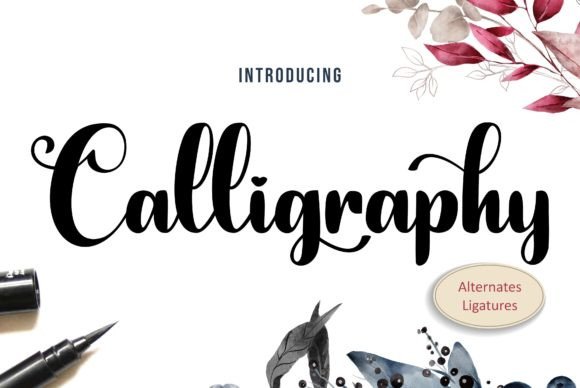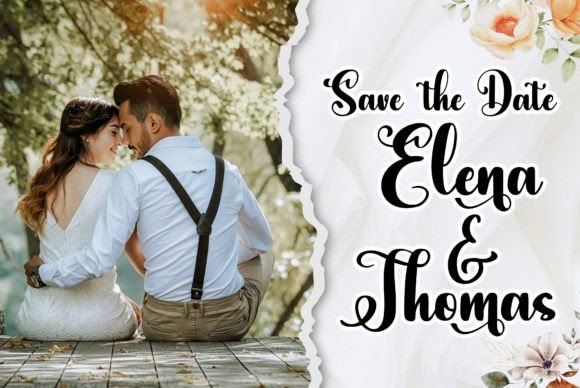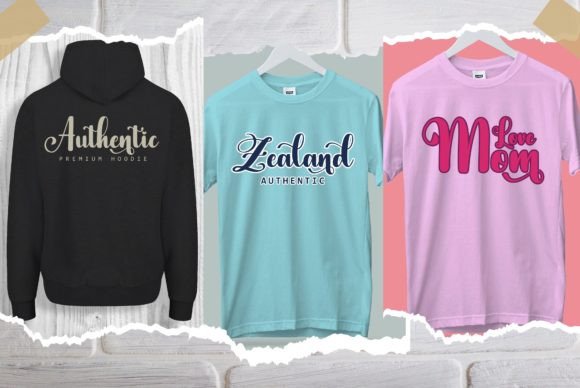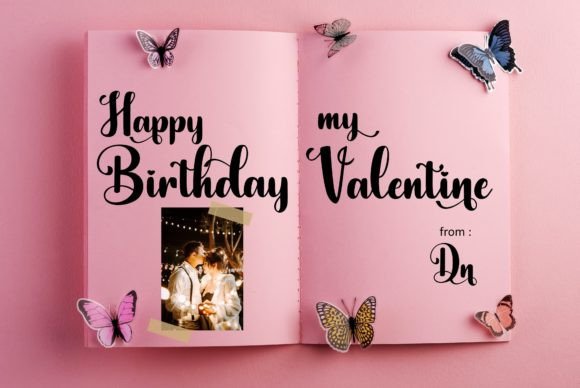
About the Calligraphy Font
Crafted with precision, the Calligraphy Font is ready to bring your ideas to life. Calligraphy is a modern fancy script font. It is perfect for brands, logos, flyers, wedding invitations, and its beautiful curves will make your projects look authentic and gorgeous.
Calligraphy Font Usage Examples
Calligraphy Font Example